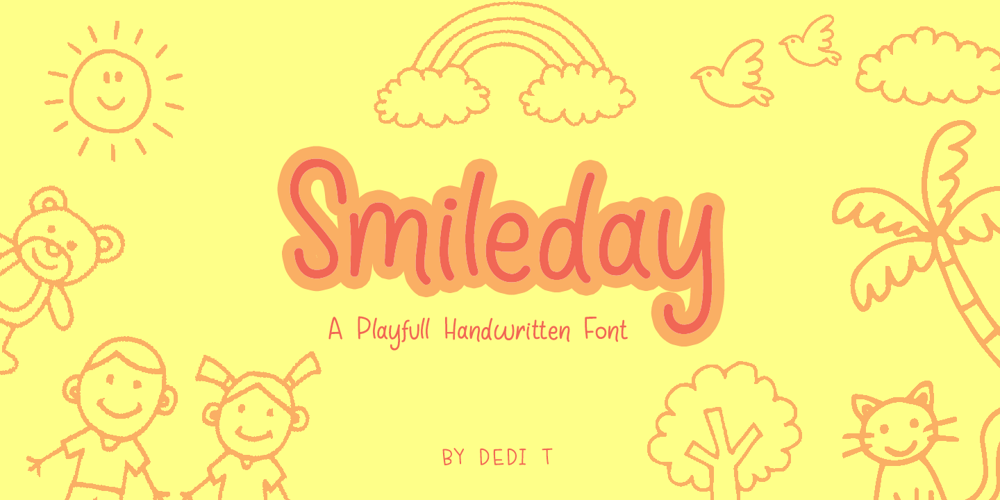
Smileday Font Family was designed by Dedi Tri Anggara and published by PandAE86. Smileday contains 1 styles and family package options. Smileday embodies fun, quirkiness and authenticity. Use this gorgeous and unique display font to bring any DIY project to life!What will you get ? Uppercase Lowercase Numeral Punctuation Ligatures Multilingual characters support Thank you and have a nice day !Dedi T A